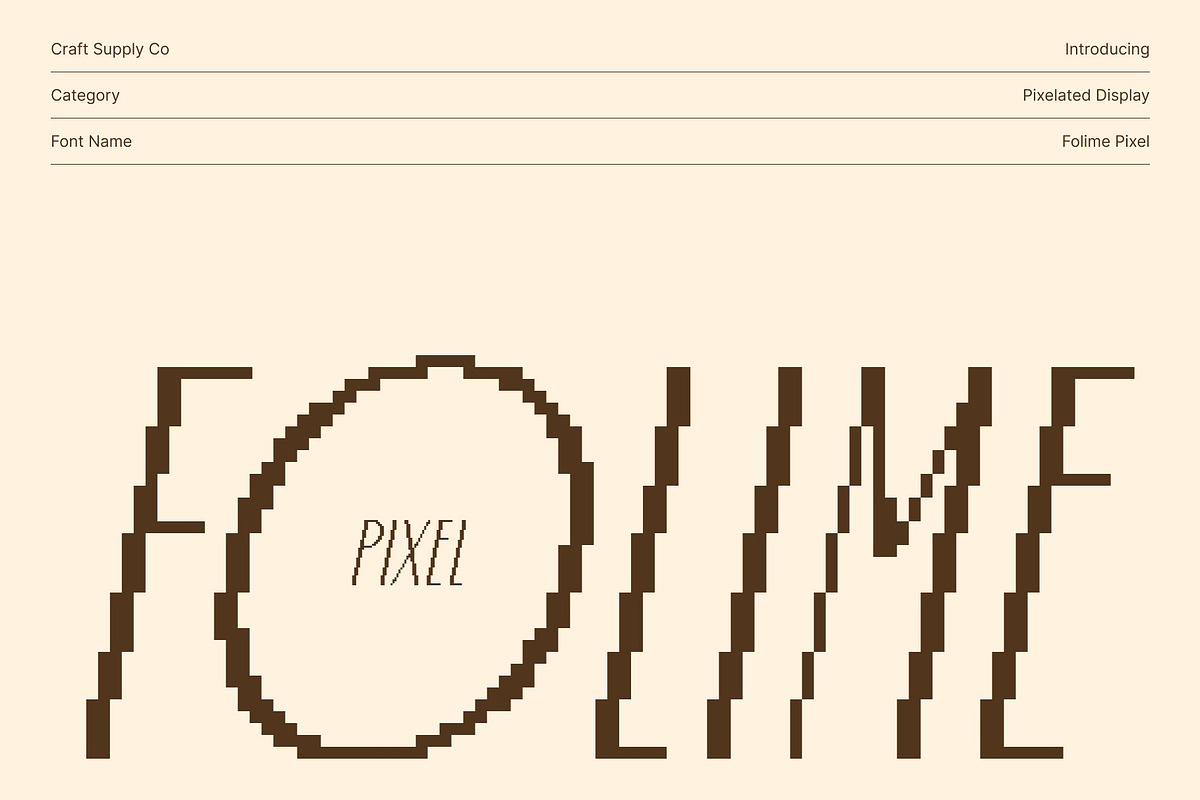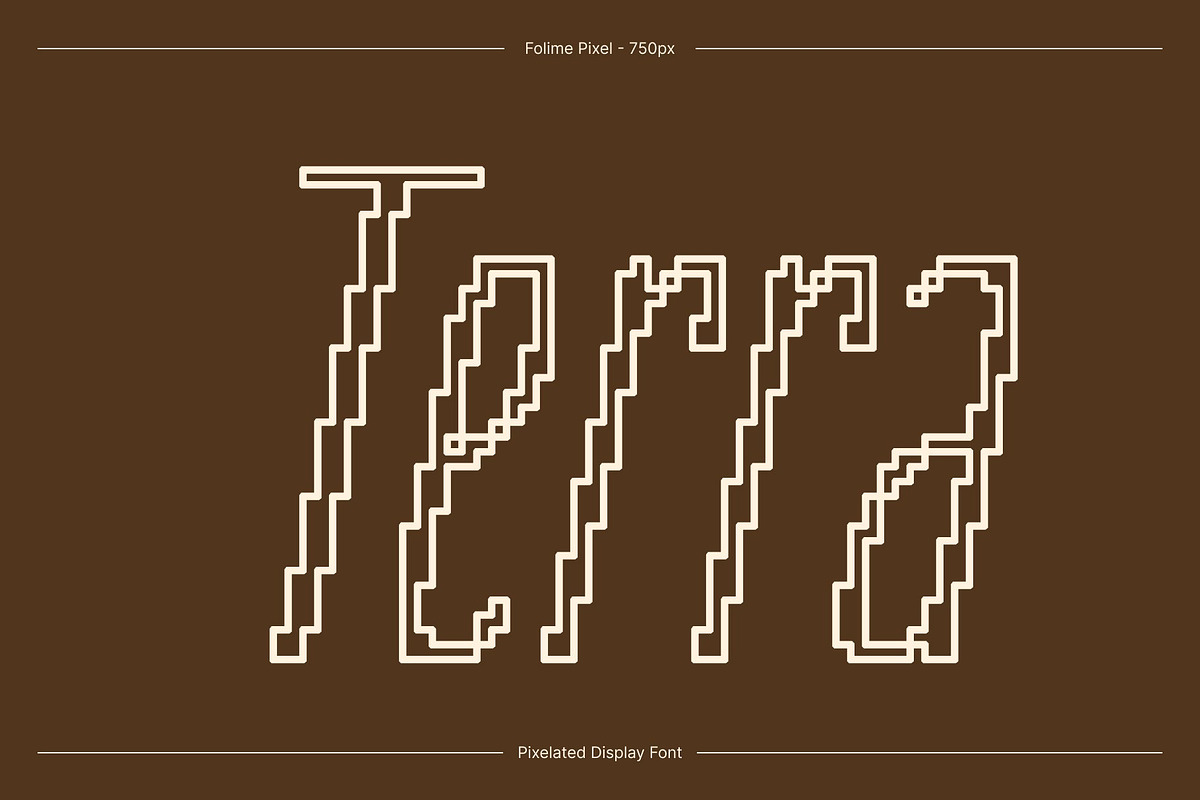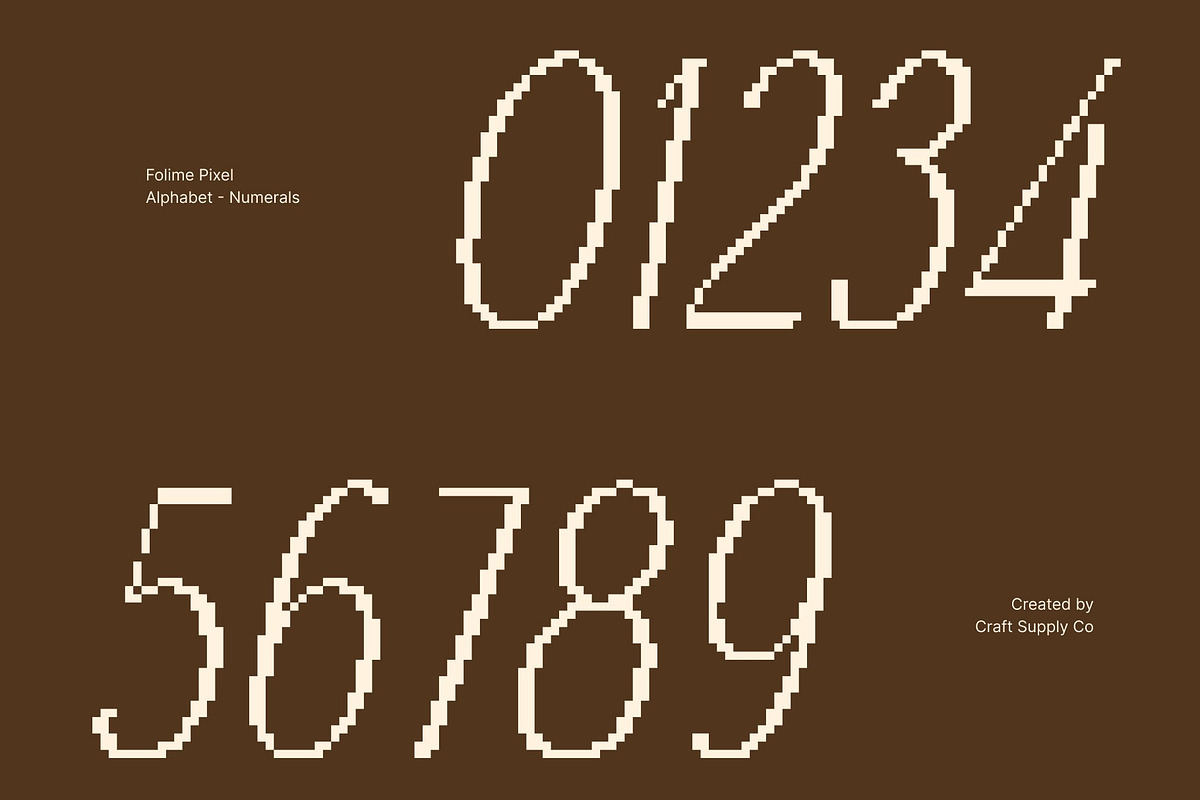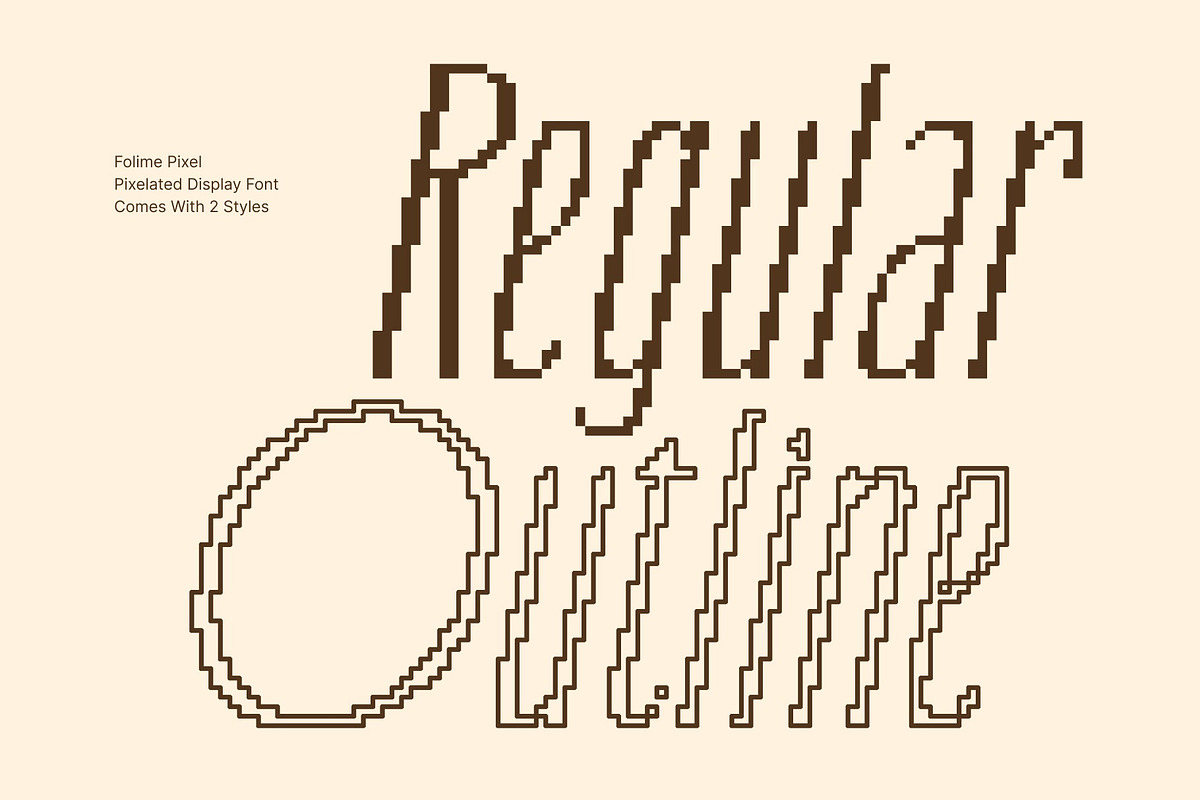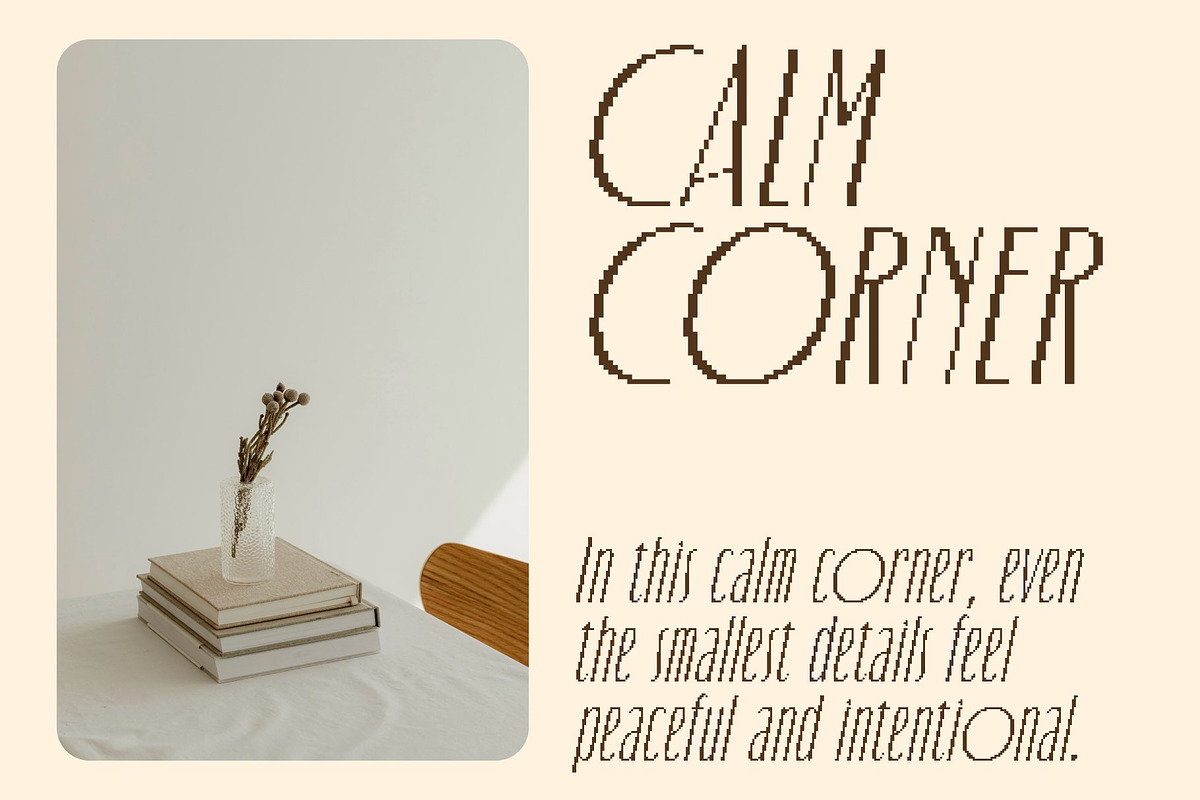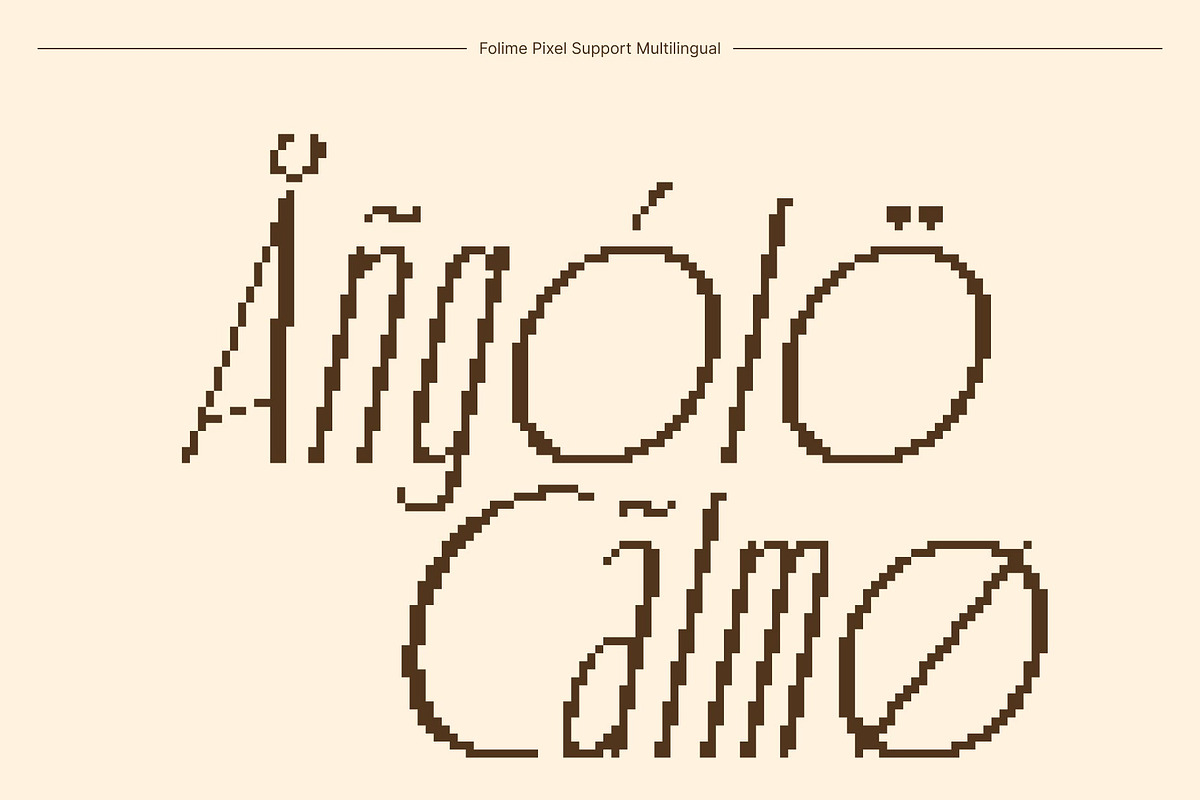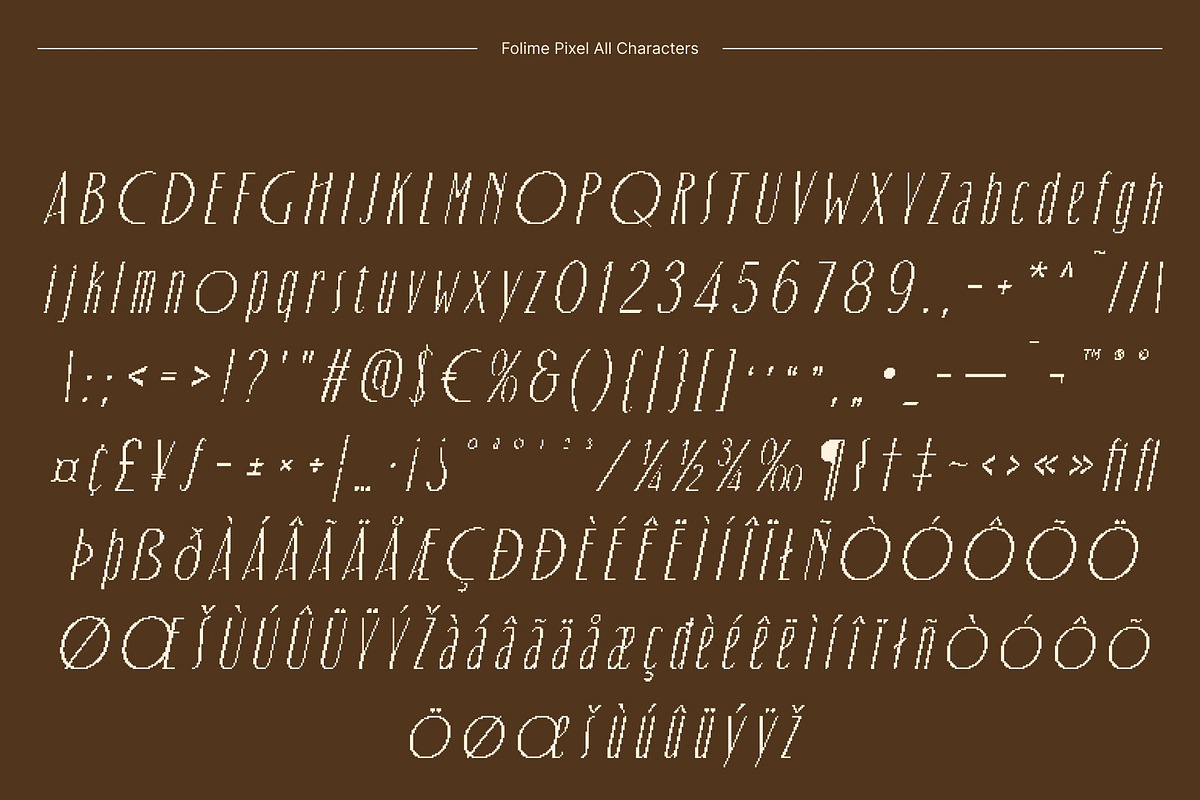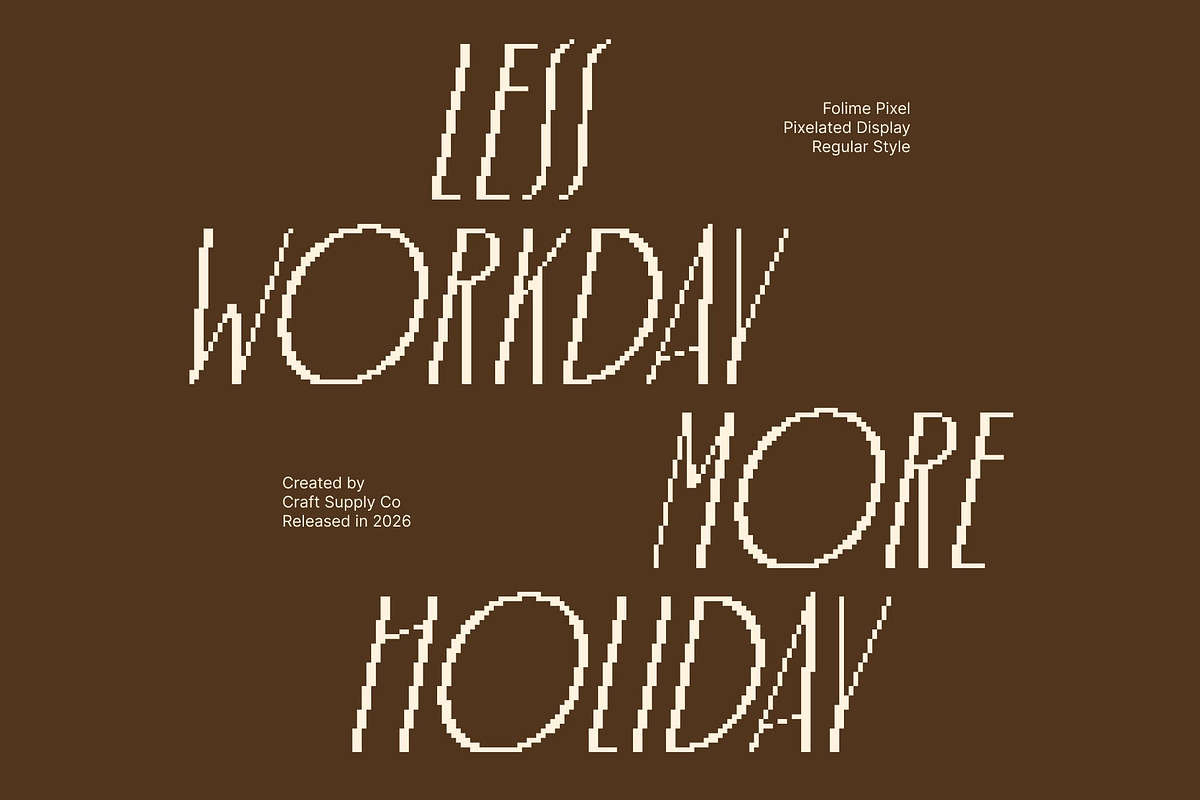
Folime Pixel
Folime Pixel – Condensed Sans Serif: A Modern Typeface for Contemporary Designs Sleek and Modern Design This is a condensed sans-serif font that combines modern sophistication with a pixelated, retro-inspired aesthetic. Its clean, rigid lines and sharp corners create a contemporary look while maintaining a digital 8-bit charm, perfect for projects that balance modern style with nostalgic appeal.
Versatile and Functional Despite its condensed structure, this font remains highly versatile. It adapts seamlessly across a variety of design applications from sleek corporate branding and modern websites to stylish packaging and digital interfaces. Its pixel-perfect construction ensures legibility even at small sizes, making it a reliable choice for both print and digital media.
Ideal for Headlines and Display This font shines in headlines, banners, and branding projects. Its narrow yet impactful form commands attention while providing a distinct, modern edge. Whether used in large-scale display or compact layouts, it delivers clarity and visual impact.
Elevate Your Designs With this font, designers can infuse projects with both charm and contemporary sophistication. Its condensed sans-serif style, paired with a pixelated aesthetic, makes it a must-have for modern, digital-inspired designs that demand style, precision, and a memorable presence.
- Folime Pixel Regular
- Folime Pixel Outline